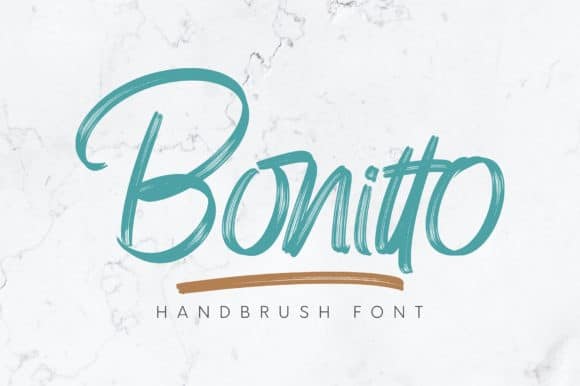
Bonitto Brush Font
Bonitto Font – is a handmade brush font with free-flowing and confident bold between thick and thin curves.
Bonitto font is perfect for branding projects, logo, wedding designs, social media posts, advertisements, product packaging, product designs, label, photography, watermark, invitation, stationery and any projects that need handwriting taste.